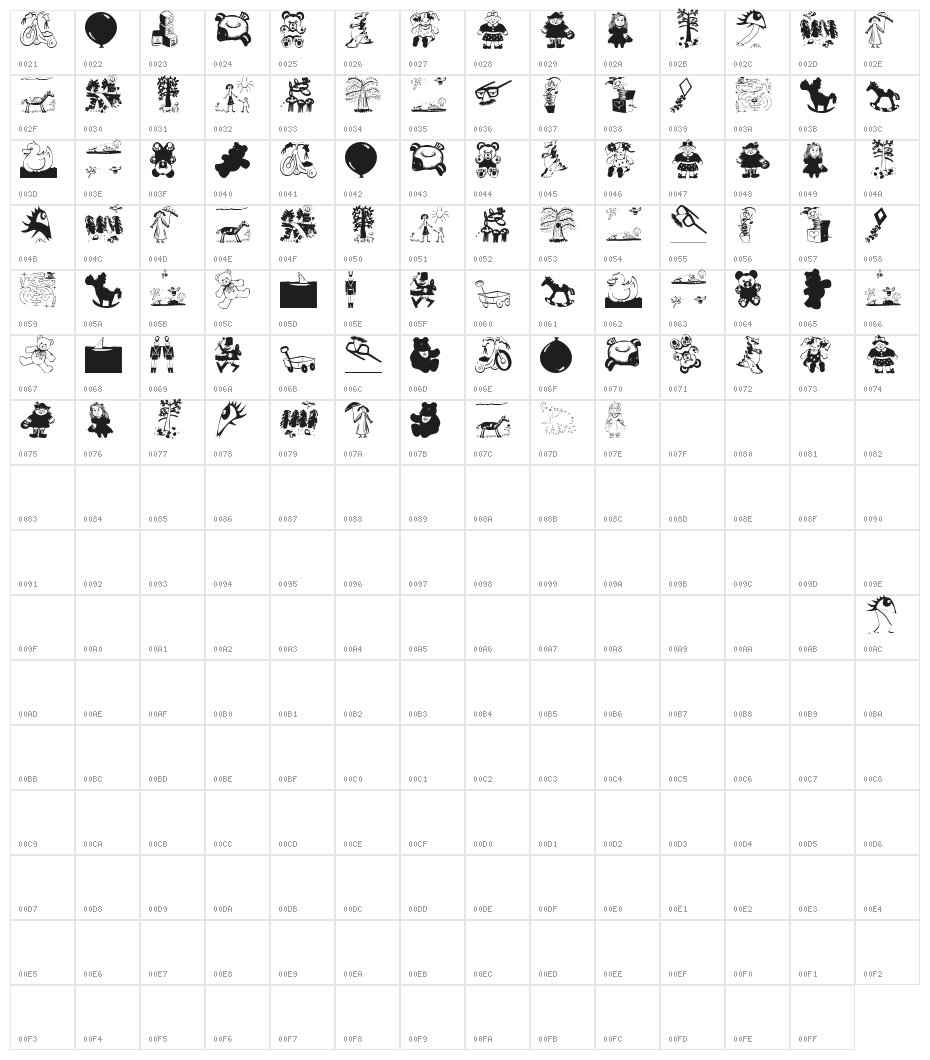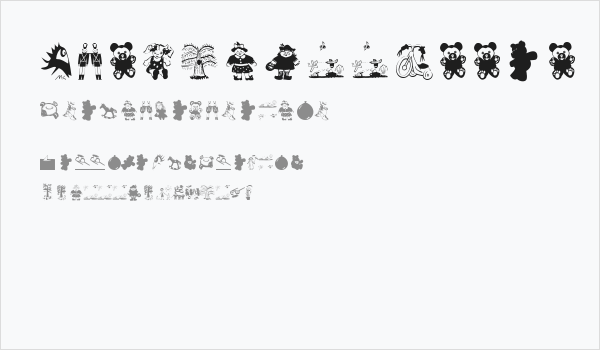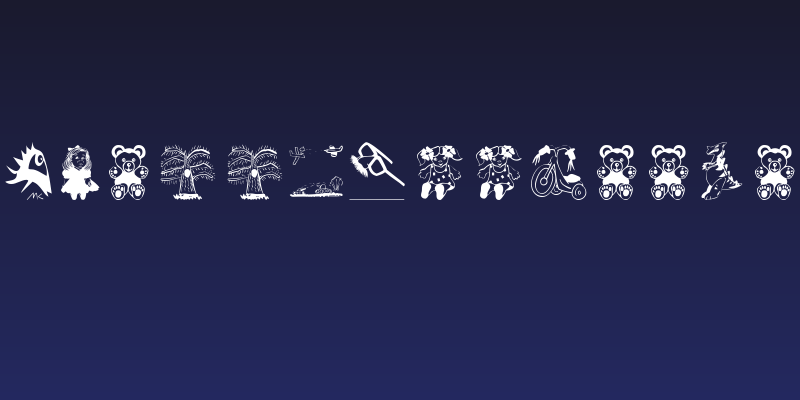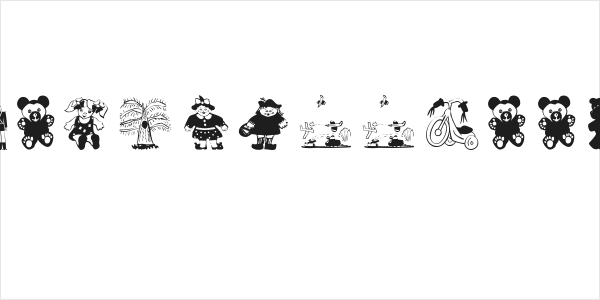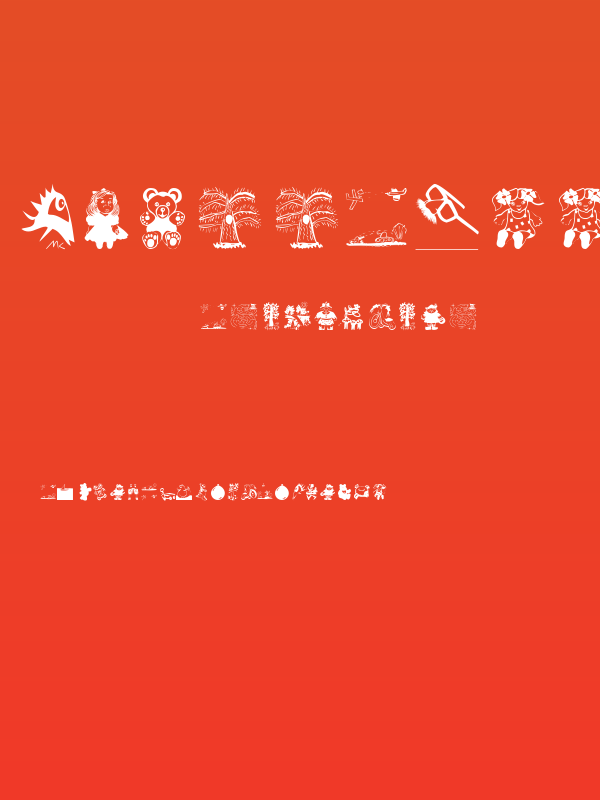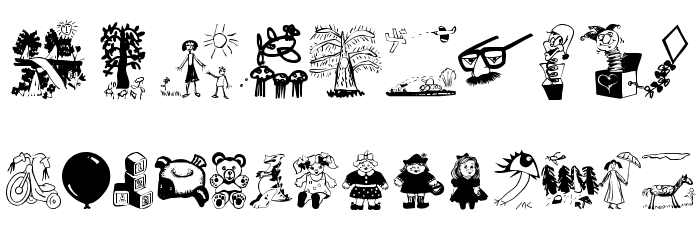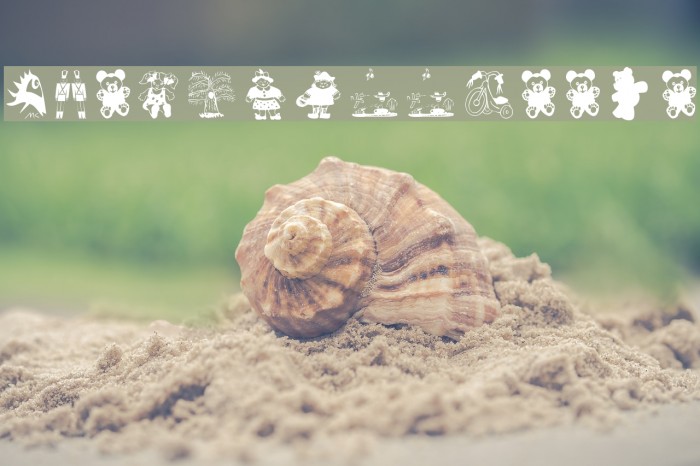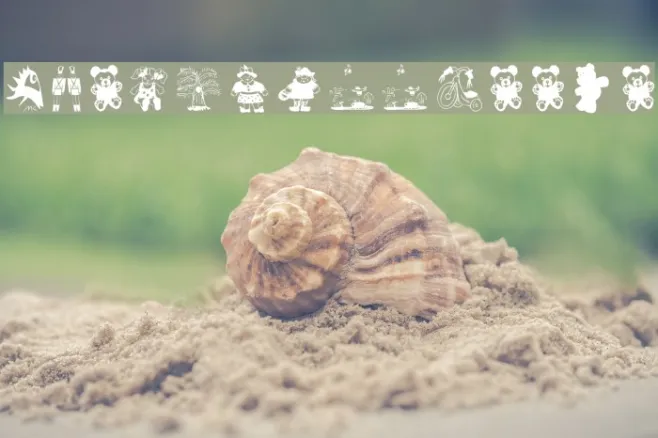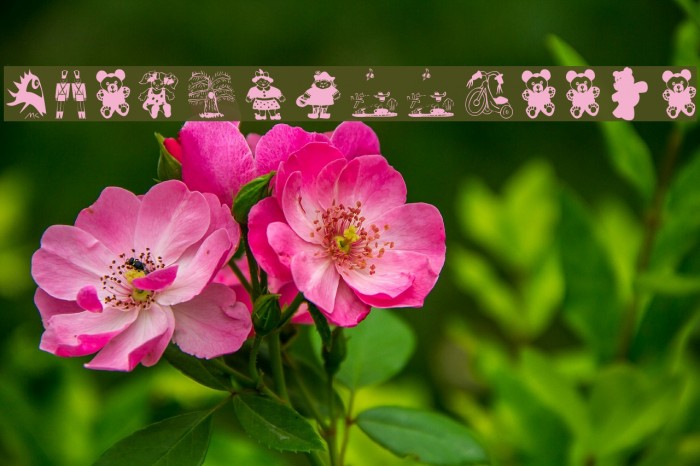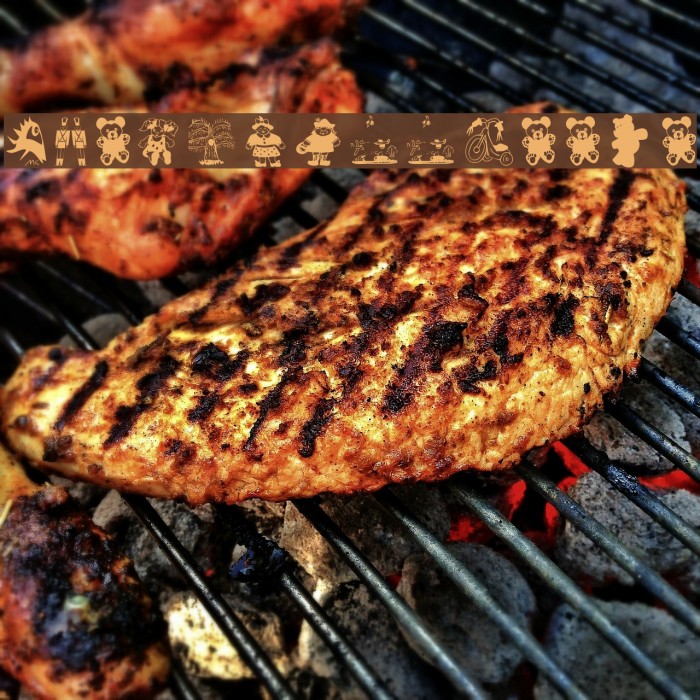
KidsStuffAdded Font
KidsStuffAdded Description
A playful, decorative dingbat font featuring a variety of whimsical children's illustrations such as toys, animals, kids, and playful objects. Each character is represented by a unique, detailed black-and-white drawing, making it suitable for creative and child-focused designs.
| Overall Style | Playful, Decorative, Childlike |
| Use Case | Illustrative accents, decorative elements, thematic graphics for kids' projects. |
| Proposed Projects | Children's books, party invitations, educational materials, scrapbooking, posters, greeting cards. |